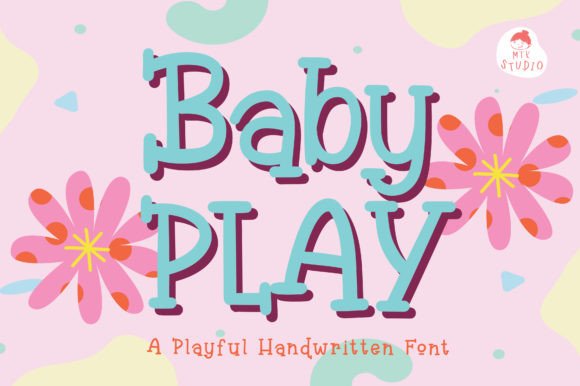
Baby Play Font: The Sweet and Friendly Handwritten Font for Your Designs
Are you a designer or crafter looking for a font that can add a touch of sweetness and friendliness to your projects? Look no further than the Baby Play Font! This beautiful handwritten font is perfect for a wide range of designs, from baby shower invitations and nursery decor to children’s books and craft projects. In this article, we’ll take a closer look at the Baby Play Font and explore its features, benefits, and uses.
What is Baby Play Font?
Baby Play Font is a sweet and friendly handwritten font that is designed to bring a touch of warmth and personality to your designs. Its natural and unique style makes it incredibly fitting to a large pool of designs, and the only limit is your imagination! This font is perfect for designers and crafters who want to create projects that are playful, fun, and engaging.
Features of Baby Play Font
The Baby Play Font has several features that make it a great choice for designers and crafters. Some of its key features include:
- Handwritten style: The Baby Play Font has a beautiful handwritten style that is perfect for creating personal and unique designs.
- Natural and unique: The font’s natural and unique style makes it incredibly fitting to a wide range of designs, from baby shower invitations to children’s books.
- Versatile: The Baby Play Font is versatile and can be used for a variety of projects, including digital and print designs.
- Easy to read: The font is easy to read, making it perfect for designs that require a clear and legible text.
Benefits of Using Baby Play Font
There are several benefits to using the Baby Play Font in your designs. Some of the benefits include:
- Adds a personal touch: The Baby Play Font adds a personal touch to your designs, making them more unique and engaging.
- Perfect for baby-themed designs: The font is perfect for baby-themed designs, including baby shower invitations, nursery decor, and children’s books.
- Increases creativity: The Baby Play Font can help increase your creativity and inspire new ideas for your designs.
Uses of Baby Play Font
The Baby Play Font can be used for a wide range of projects, including:
- Baby shower invitations: The font is perfect for creating beautiful and unique baby shower invitations.
- Nursery decor: The Baby Play Font can be used to create nursery decor, including wall art, banners, and signs.
- Children’s books: The font is perfect for creating children’s books, including storybooks, activity books, and educational materials.
- Craft projects: The Baby Play Font can be used for a variety of craft projects, including scrapbooking, card making, and DIY home decor.
Tips for Using Baby Play Font
Here are some tips for using the Baby Play Font in your designs:
- Use it with other fonts: The Baby Play Font can be paired with other fonts to create a unique and interesting design.
- Experiment with colors: The font looks great in a variety of colors, so don’t be afraid to experiment and find the perfect color for your design.
- Use it for headings and titles: The Baby Play Font is perfect for headings and titles, and can add a touch of sweetness and friendliness to your design.
In conclusion, the Baby Play Font is a beautiful and versatile handwritten font that is perfect for designers and crafters. Its natural and unique style makes it incredibly fitting to a wide range of designs, and the only limit is your imagination! With its ease of use, versatility, and sweet and friendly style, the Baby Play Font is a great addition to any design project.